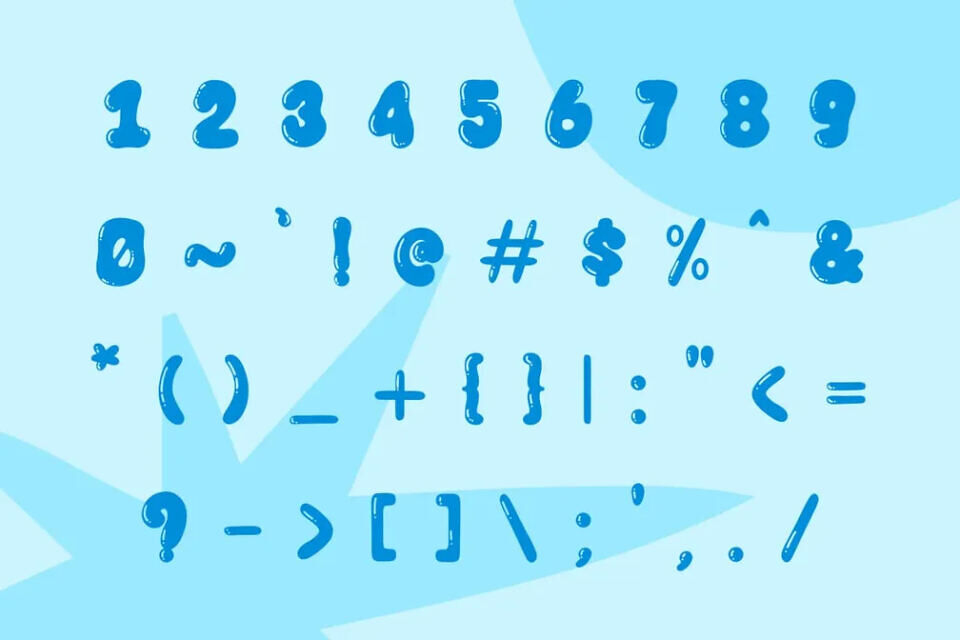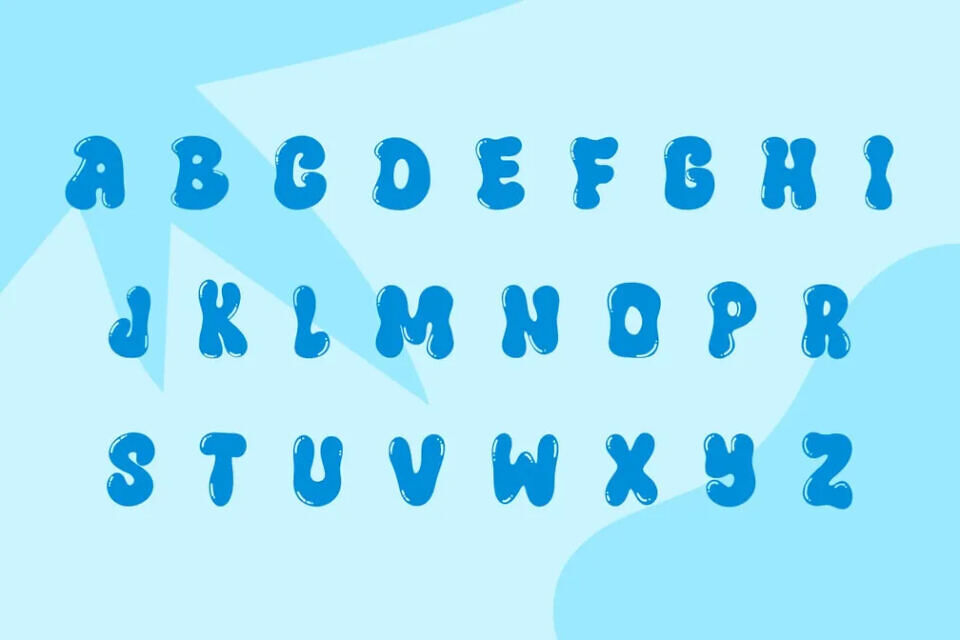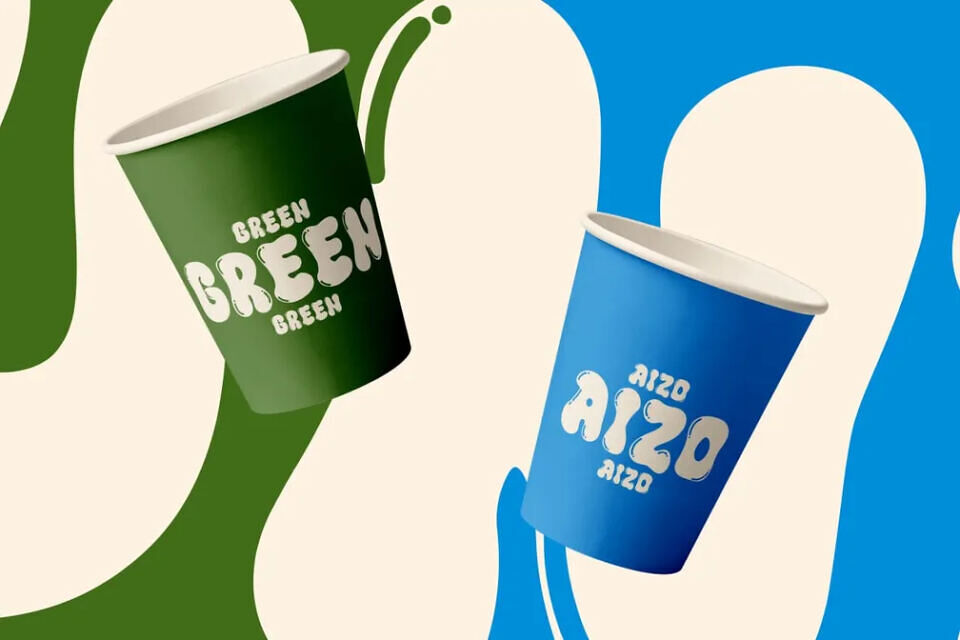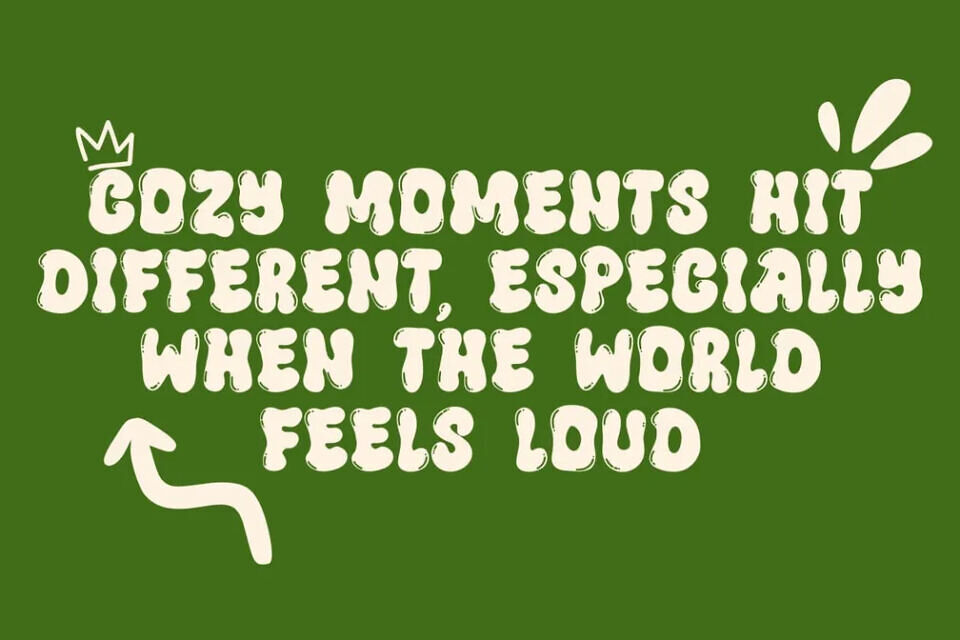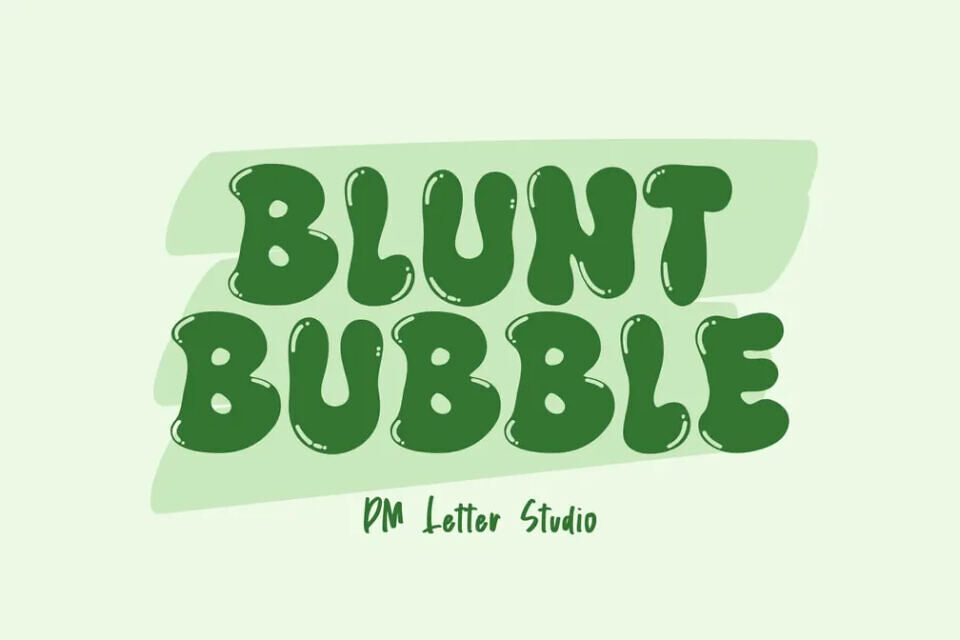
Blunt Bubble Font
Blunt Bubble is a bold, rounded display font built to make designs feel fun, loud, and impossible to ignore. The letterforms are thick and soft with a blunt edge that gives them a confident, cartoon-like personality. Each character feels inflated and friendly, like bold lettering shaped from smooth bubble foam.
It is perfect for projects that need warmth, humor, and strong visual impact. Use Blunt Bubble for kids branding, snack packaging, sticker designs, YouTube thumbnails, social media graphics, birthday invitations, and playful merchandise. As a result, your typography feels cheerful, expressive, and instantly eye-catching.